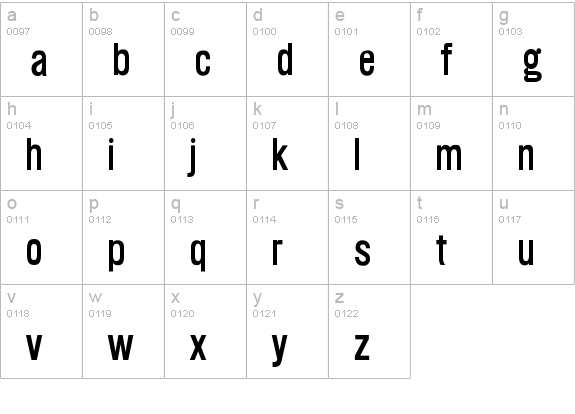
Washington Font Details
Introducing Washington font, a stunning typeface that effortlessly combines elegance and versatility. With its timeless appeal and meticulous attention to detail, Washington is the perfect choice for a wide range of design projects. This beautifully crafted font boasts a sophisticated yet approachable aesthetic, making it suitable for both professional and personal use. Whether you are creating a logo for a high-end brand, designing a wedding invitation, or simply adding a touch of refinement to your website, Washington will elevate your work to new heights. Featuring a wide range of weights and styles, Washington offers endless possibilities for creative expression. From its sleek and modern Thin variant to its bold and commanding Black version, this font ensures that every word is imbued with impact and clarity. One of the most remarkable aspects of Washington font is that it is available to download for free at FontsMarket.com. This means that you can easily access this exceptional typeface and incorporate it into your designs without any financial constraints. The accessibility of Washington font allows designers, content creators, and enthusiasts alike to bring their visions to life with style and sophistication. Additionally, Washington font is highly legible, ensuring that your message is effortlessly conveyed to your audience. Its clean lines and well-balanced letterforms make reading a pleasure, while its subtle embellishments add a touch of character and charm. In conclusion, Washington font is a superb choice for those seeking a versatile and visually captivating typeface. Its seamless combination of elegance, versatility, and legibility makes it an invaluable asset for any design project. Best of all, it is freely available to download at FontsMarket.com, ensuring that creativity knows no bounds. Enhance your designs and captivate your audience with Washington font today.